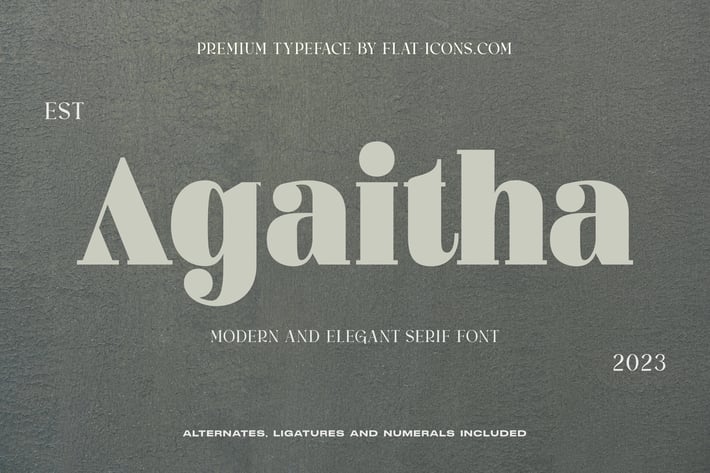
Modern and Elegant Serif Font
Looking for a font with a modern elegance and timeless style? Whether it's for a stunning headline or a sophisticated invitation, we've got the ideal thing.
Introducing Agaitha - a Modern and Elegant Serif.
With its sleek curves and refined details, Agaitha is perfect for elegant projects. Digital or print, this font ensures your brand leaves a lasting mark.
Multilingual & Ligature Support
Full sets of Punctuation and Numerals